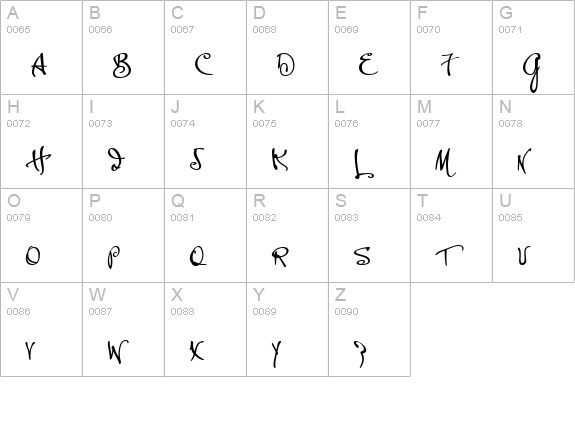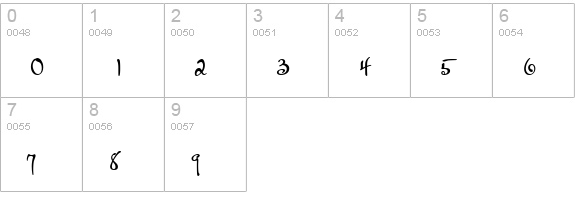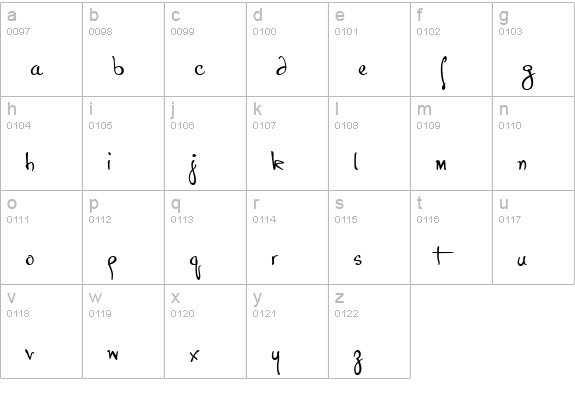
P22 Hopper Josephine Font Details
P22 Hopper Josephine font is a visually stunning typeface that exudes elegance and sophistication. Inspired by the iconic American artist Edward Hopper and his wife, Josephine Hopper, this font captures the essence of their artistic vision and brings it to life on the digital canvas. With its graceful curves and delicate letterforms, P22 Hopper Josephine font adds a touch of refined beauty to any design project. Whether you're creating a logo, designing a website, or crafting a captivating poster, this font will elevate your work to new heights. What sets P22 Hopper Josephine font apart is not only its exceptional aesthetics but also its accessibility. This font is freely available to download at FontsMarket.com, making it a valuable asset for designers and creatives seeking high-quality resources without breaking the bank. Embrace the timeless allure of P22 Hopper Josephine font and infuse your designs with a sense of style and sophistication. Let each letter tell a story and captivate your audience with its effortless charm. Whether it's for personal or commercial use, this font is a must-have in any designer's toolkit. So, why settle for ordinary when you can have extraordinary? Download P22 Hopper Josephine font from FontsMarket.com today and unlock a world of creative possibilities. Let your imagination soar and create stunning visuals that leave a lasting impression. With this font, the sky's the limit.